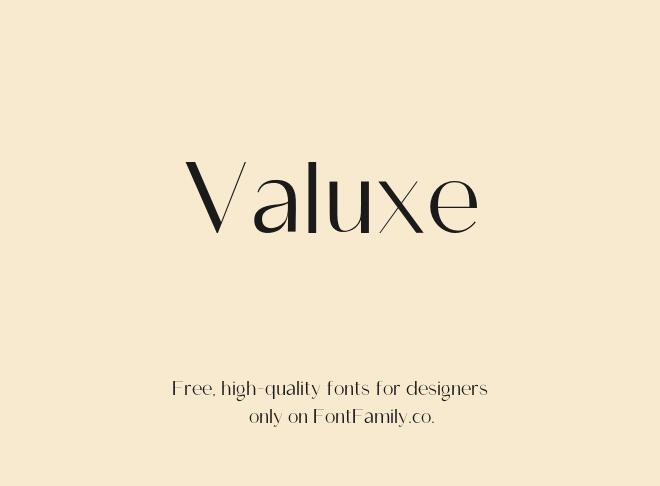
Valuxe Font
Valuxe Font is an elegant and modern typeface that exudes class and sophistication. This beautifully designed font features a unique blend of sleek lines and gentle curves, making it a perfect choice for luxury branding, high-end product packaging, and sophisticated logo designs. Its modern aesthetics also makes it a great fit for minimalist website design and digital graphics. Compared to other fonts, Valuxe stands out with its distinctive character and style that adds a touch of luxury to any design. Its versatility allows it to be easily paired with other typefaces and fits seamlessly into a wide range of design concepts. Choosing Valuxe Font is a surefire way to elevate the visual appeal of your designs and make a lasting impression.